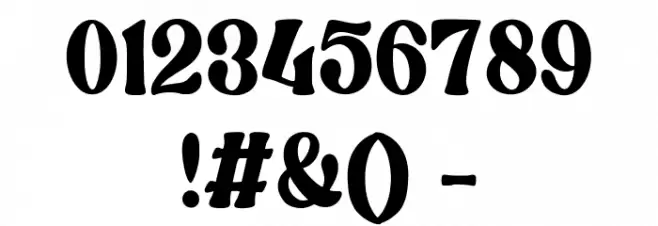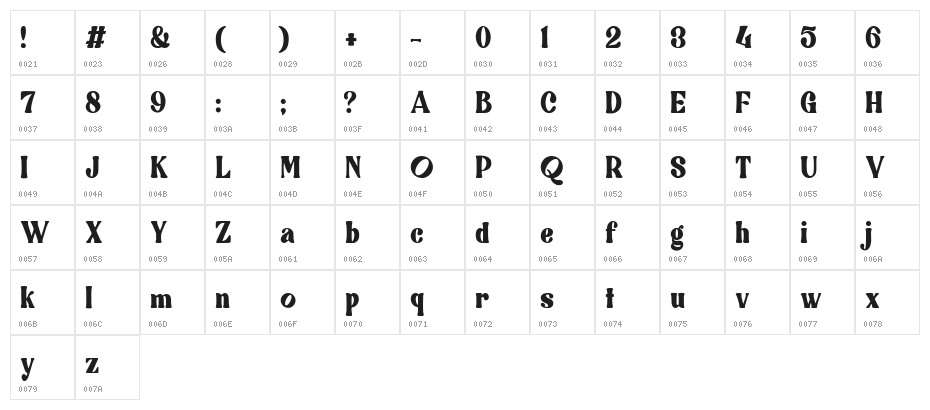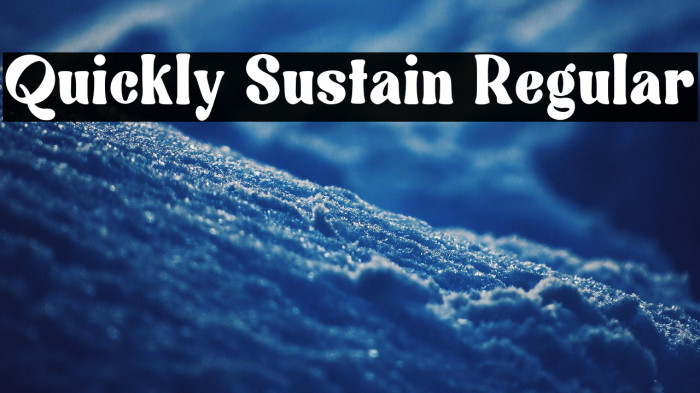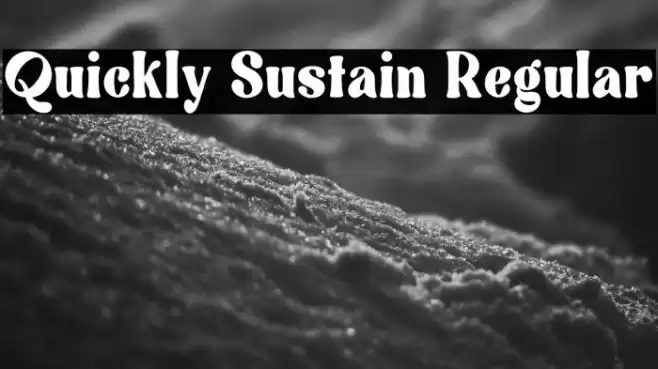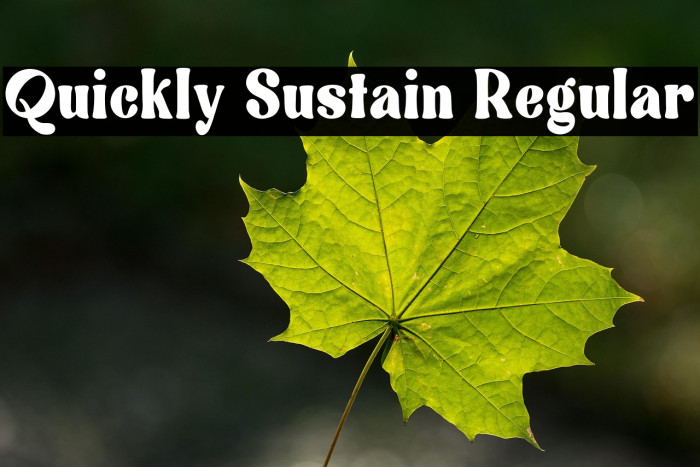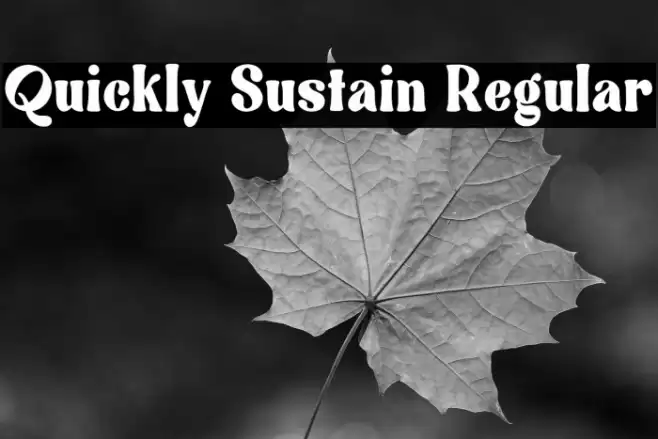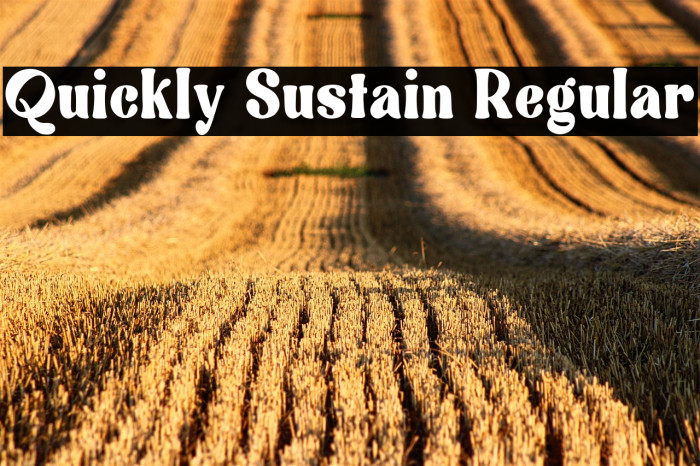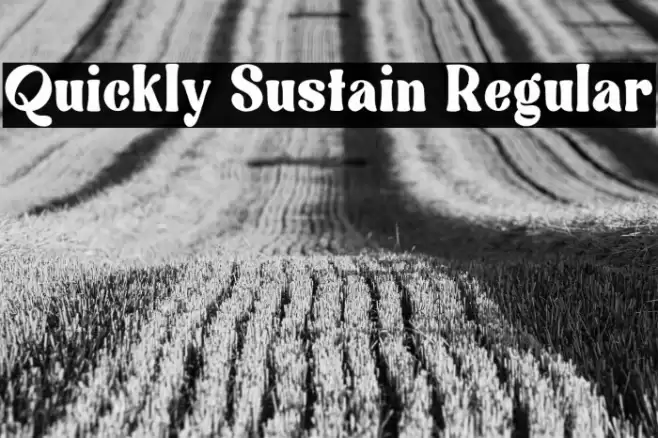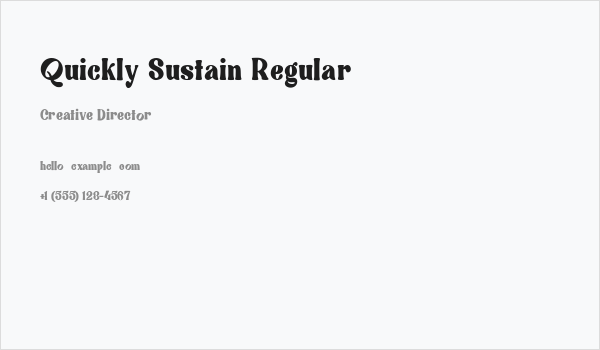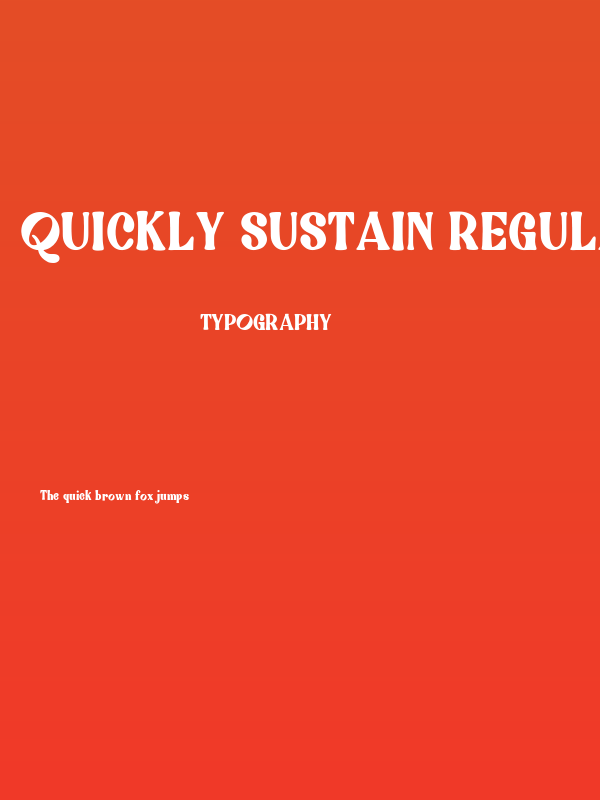
Quickly Sustain Regular Font
Quickly Sustain Regular Description
This font features a bold and playful design with a distinct vintage flair. The characters are rounded and have a slightly condensed appearance, giving them a unique and eye-catching look. The uppercase letters are particularly striking, with their thick strokes and subtle curves, while the lowercase letters maintain a consistent style that complements the overall aesthetic. The numbers and special characters are designed to match the boldness of the alphabet, ensuring a cohesive look across all text. This font's style is reminiscent of retro signage and advertising, making it ideal for projects that require a touch of nostalgia.
| Proposed Projects | Ideal for retro-themed posters, vintage branding, and playful packaging designs. |